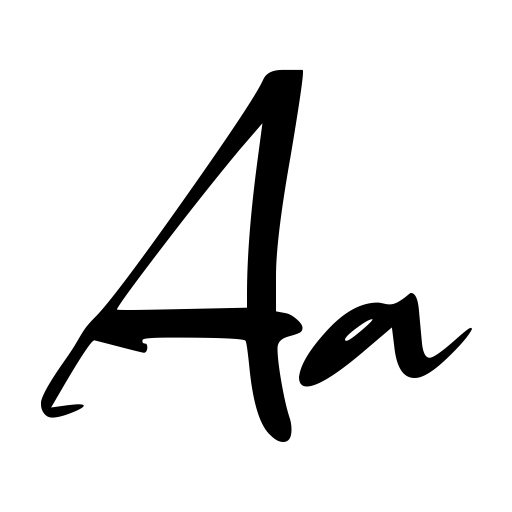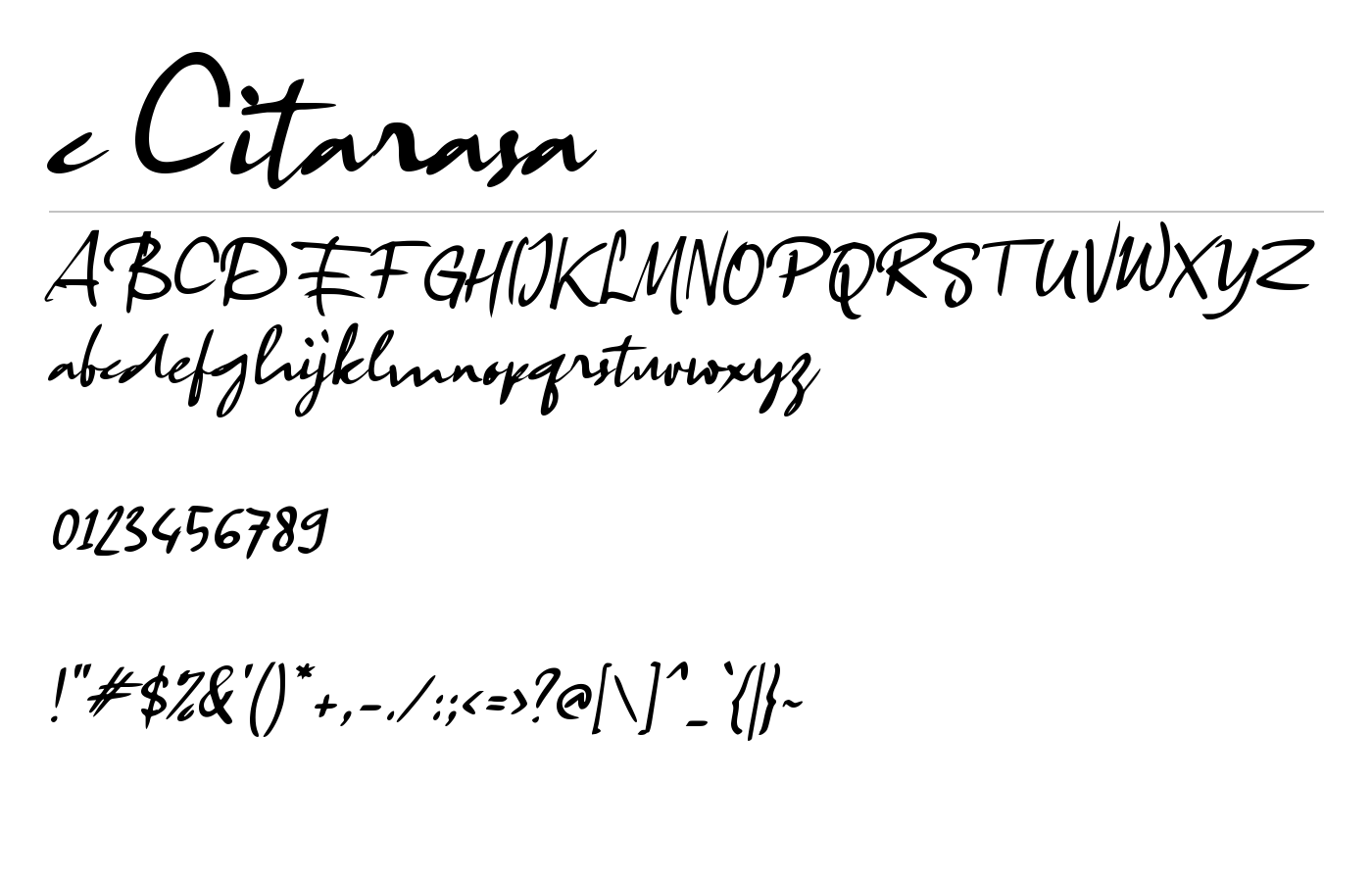
Citarasa is a lively handwritten script font with a natural, flowing style that blends casual charm with subtle elegance. Its medium weight and varied stroke width give it a dynamic, personal feel, making it ideal for creative branding, invitations, and artistic designs that want to communicate warmth and individuality. This font works beautifully in headlines and logos where a handcrafted, approachable look is desired.
c Citarasa Font